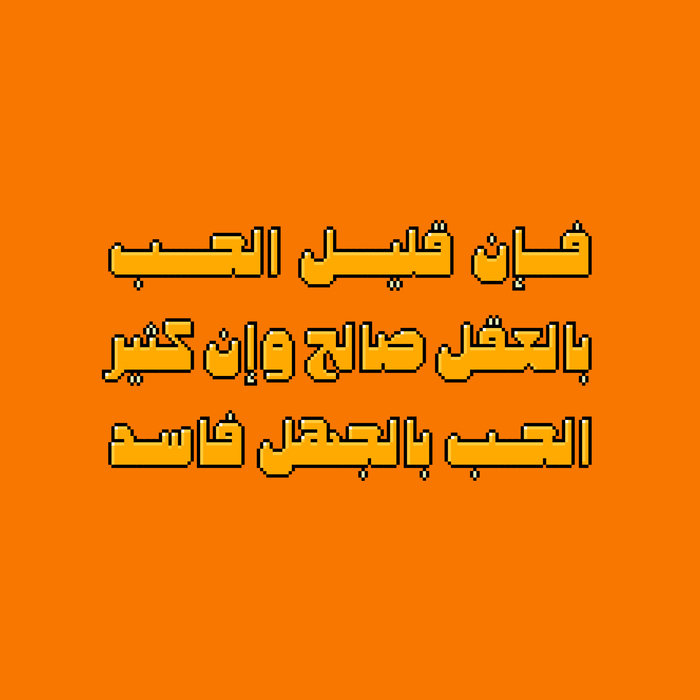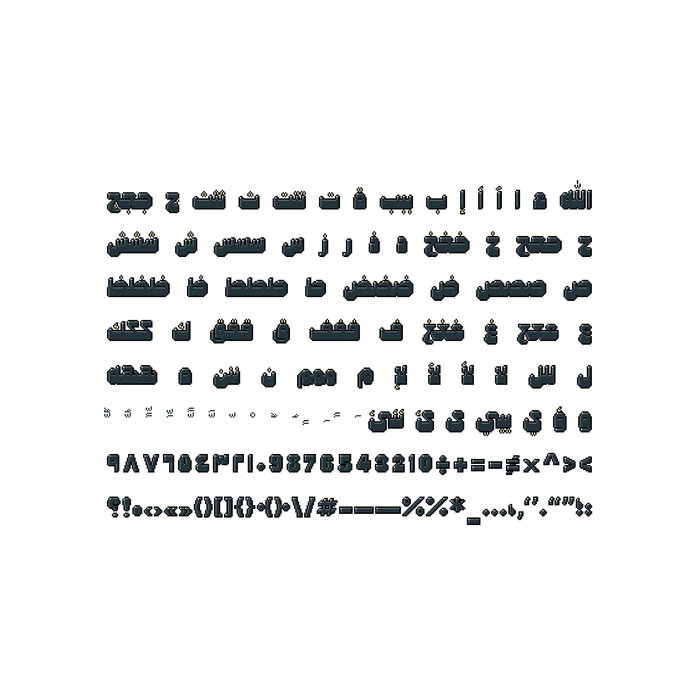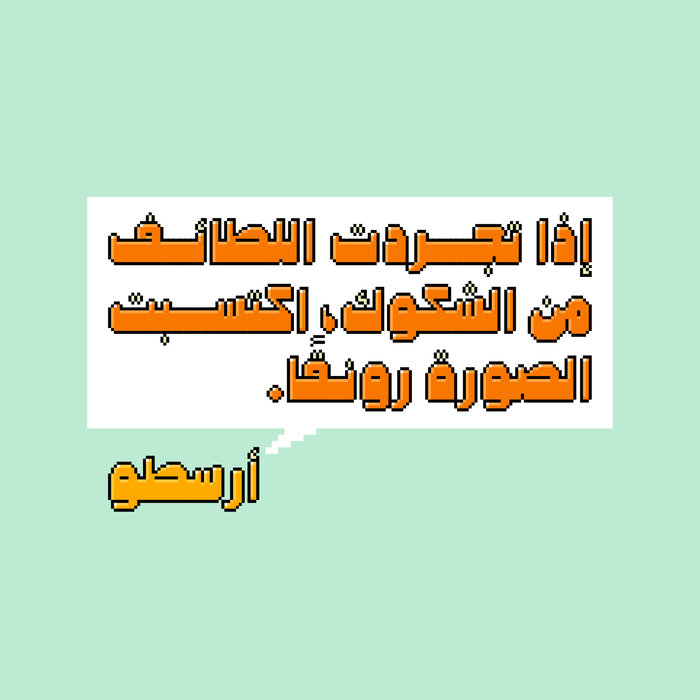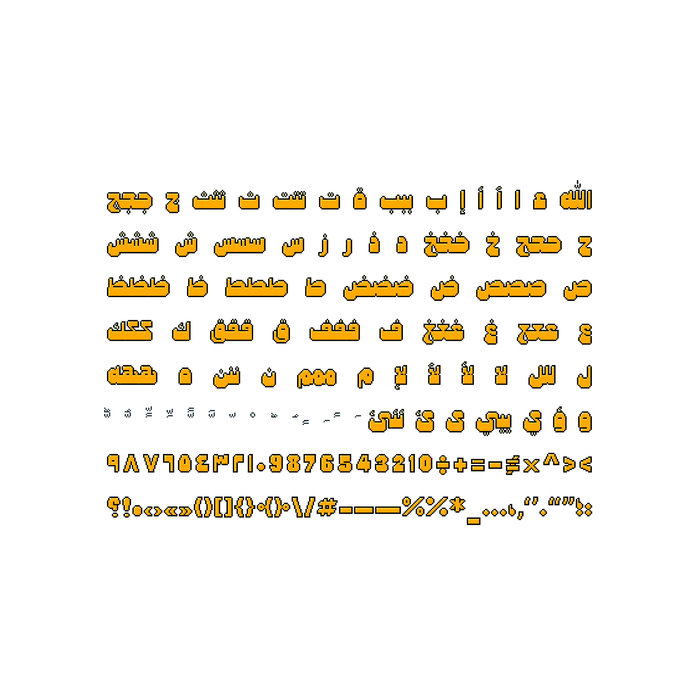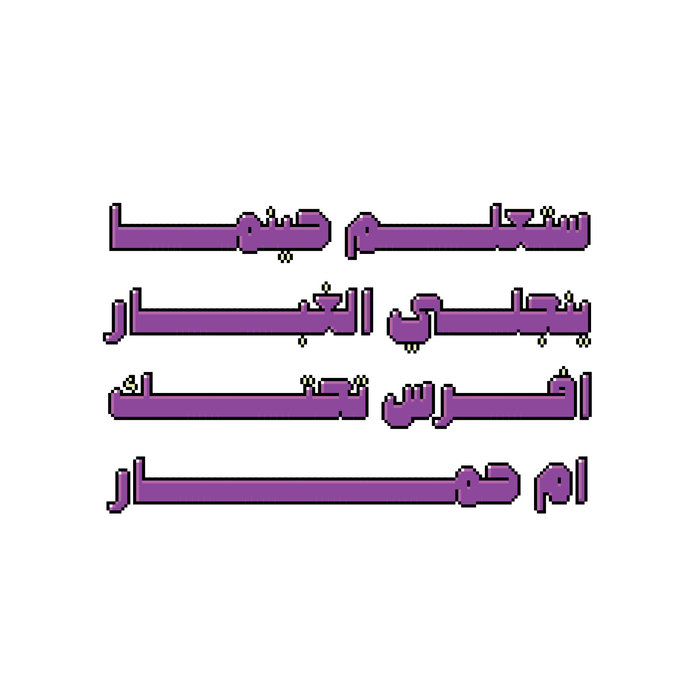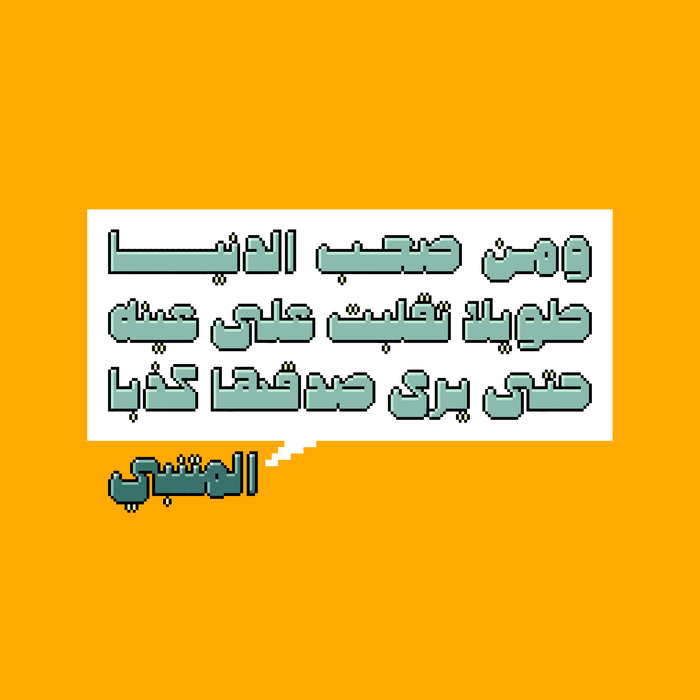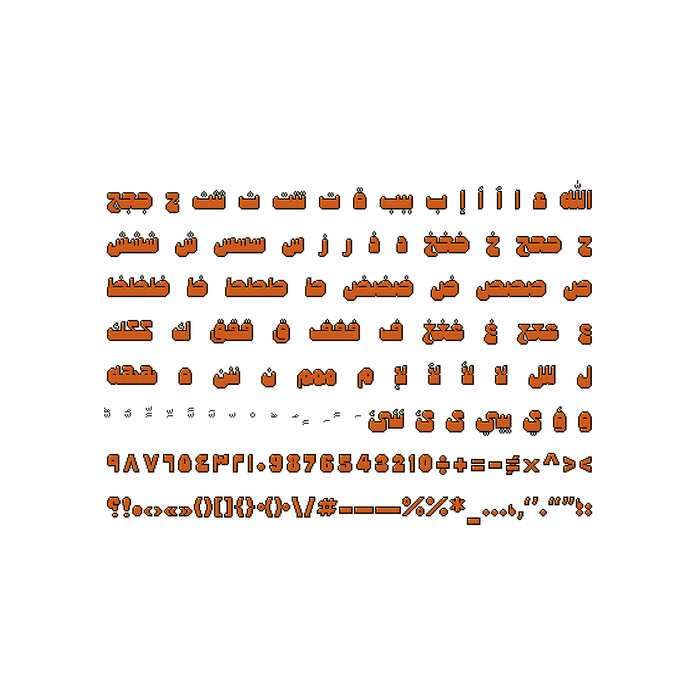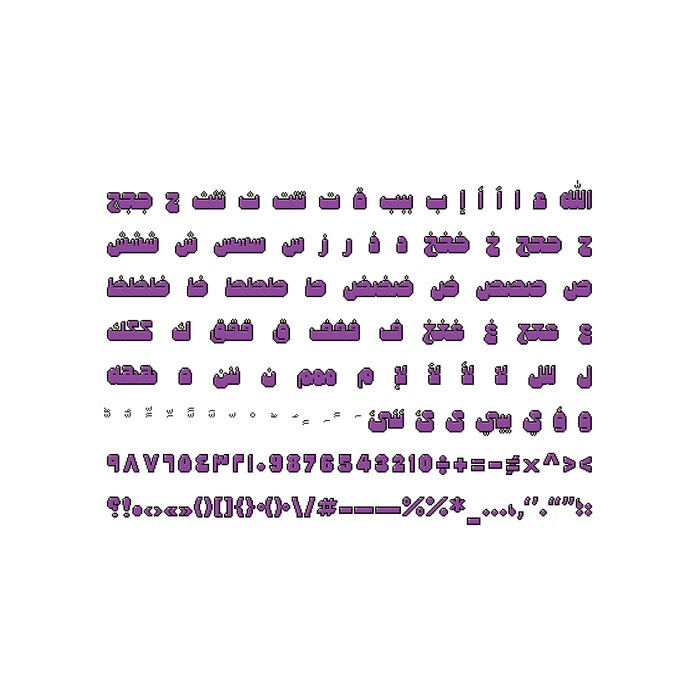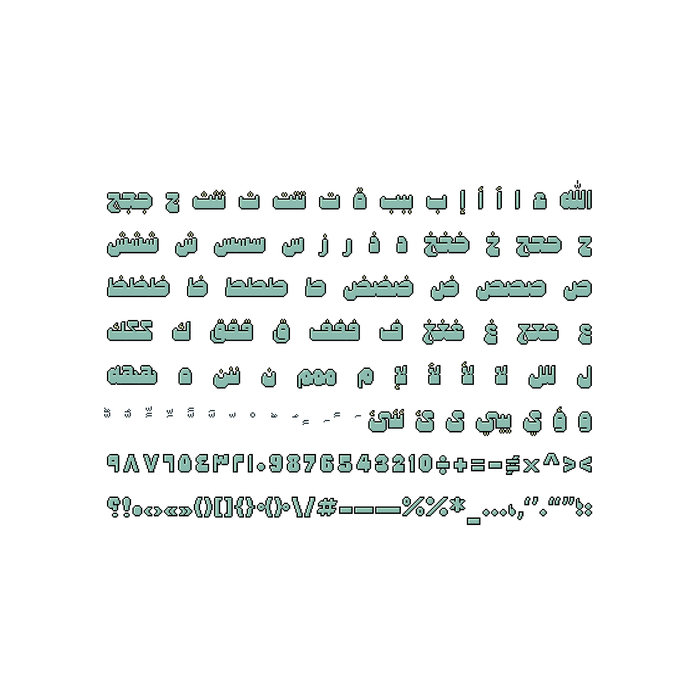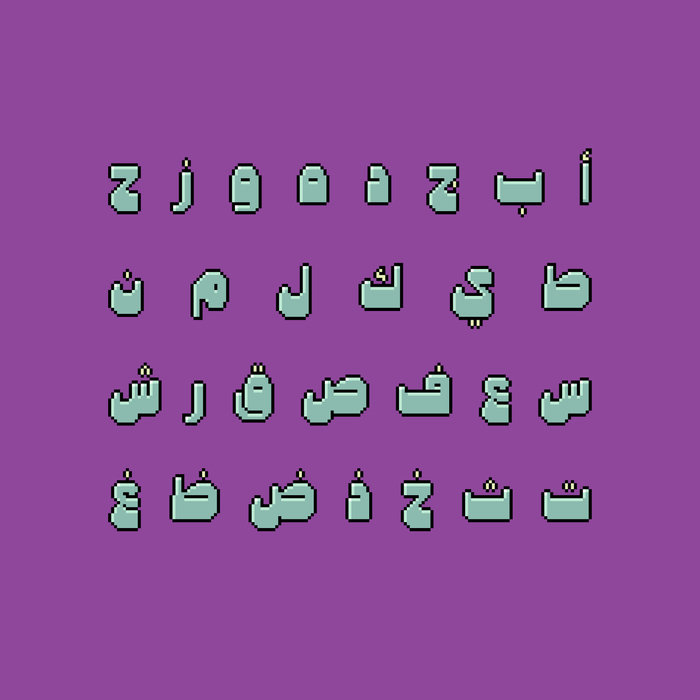
Mopaxel - Arabic Color Font
Mopaxel (which is the Arabic slang word for Pixelated) is an Arabic display font that features heavy and playful letterform structure. The font design is inspired by the 8-bit graphics, which was a common method for storing computer graphics during the 1980s and up until modern computers with higher CPU speeds became readily available. Mopaxel is an SVG-OpenType colored font that comes in seven different color options. It suits various range of design applications such as branding, advertising and web.